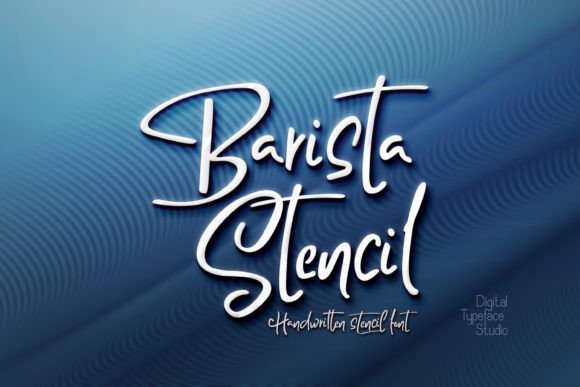
Introducing Barista Stencil Font, the ultimate choice for those seeking the best font style for engraving! Created by the talented Digital Typeface Studio, this font family is here to revolutionize your design game. Get ready to embark on a journey of creativity and unique expression!
Barista Stencil is not your ordinary script font. It is a meticulously crafted handwritten stencil font that will make your designs stand out from the crowd. With its captivating and eye-catching appeal, this font will leave a lasting impression on anyone who lays eyes on your work.
What sets Barista Stencil apart is its distinctive feature of being crafted without closed loops on the characters. This means that each letter exudes an aura of originality, making your designs truly one-of-a-kind. Say goodbye to generic fonts and embrace the artistry of Barista Stencil.
Whether you're working on cutting projects, crafts, packaging, or any other creative endeavor, Barista Stencil is your perfect companion. Its versatility knows no bounds, allowing you to explore endless possibilities and unleash your imagination. Let this font breathe life into your projects and captivate your audience like never before.
But why settle for ordinary when you can have extraordinary? Barista Stencil Font elevates your designs to a whole new level, enchanting your viewers with its charm and elegance. It paints a picture of sophistication and professionalism, leaving no room for mediocrity.
Immerse yourself in the world of Barista Stencil Font and experience the joy of crafting visually stunning designs. Let your creativity flow and watch as your ideas come to life. This font is not just a tool, but a catalyst for inspiration, igniting a fire within you to create masterpieces that leave a lasting impact.
So don't wait any longer! Unleash the power of Barista Stencil Font and witness the transformation it brings to your projects. Whether you're a seasoned designer or a passionate hobbyist, this font is your secret weapon for success.
Are you ready to make a statement? Embrace the artistry, embrace the uniqueness, and let Barista Stencil Font be your creative companion. Say goodbye to ordinary and hello to extraordinary. Elevate your designs with the best font style for engraving. Download Barista Stencil Font now and embark on a journey of creative brilliance!